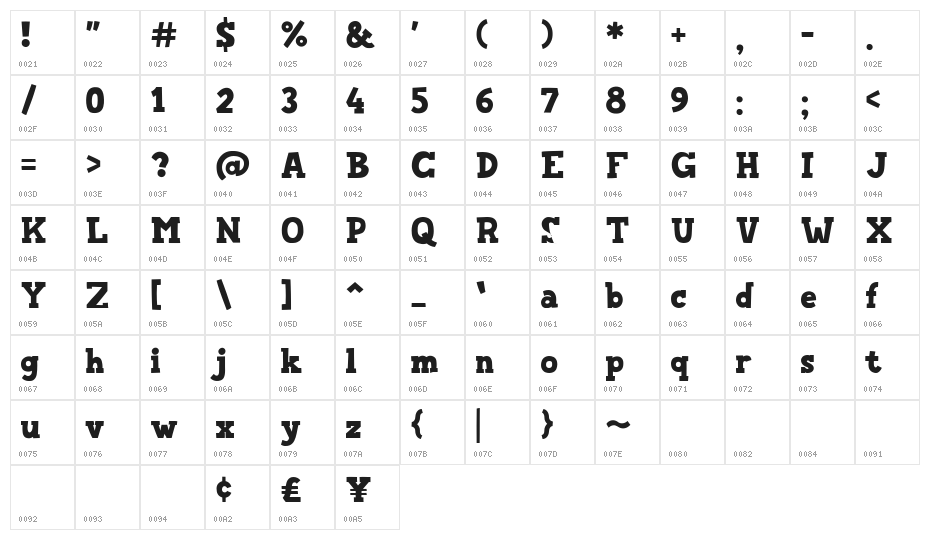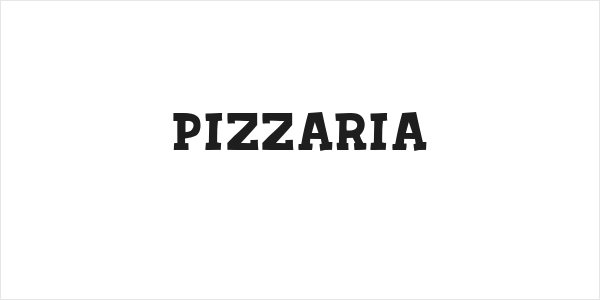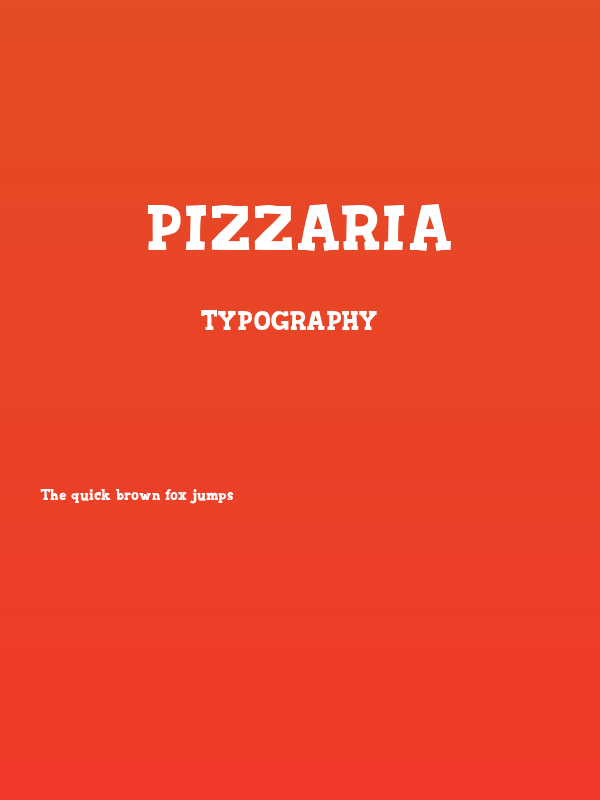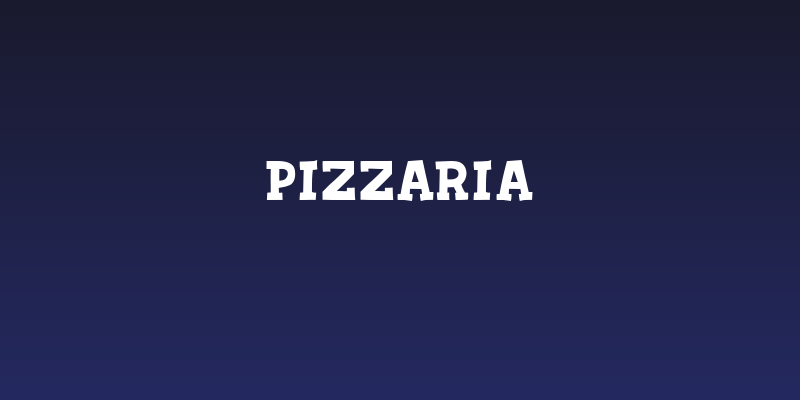
PIZZARIA Font
This font features a bold and playful style with a strong presence. The characters are thick and slightly rounded, giving them a friendly and approachable appearance. The uppercase letters are uniform in height, while the lowercase letters maintain a consistent baseline, enhancing readability. The numbers are equally bold, ensuring they stand out. Special characters are designed with the same boldness, making them suitable for attention-grabbing designs. The overall look is reminiscent of vintage signage, making it ideal for projects that require a touch of nostalgia.
| Proposed Projects | Ideal for branding, posters, restaurant menus, and any project needing a vintage or playful touch. |